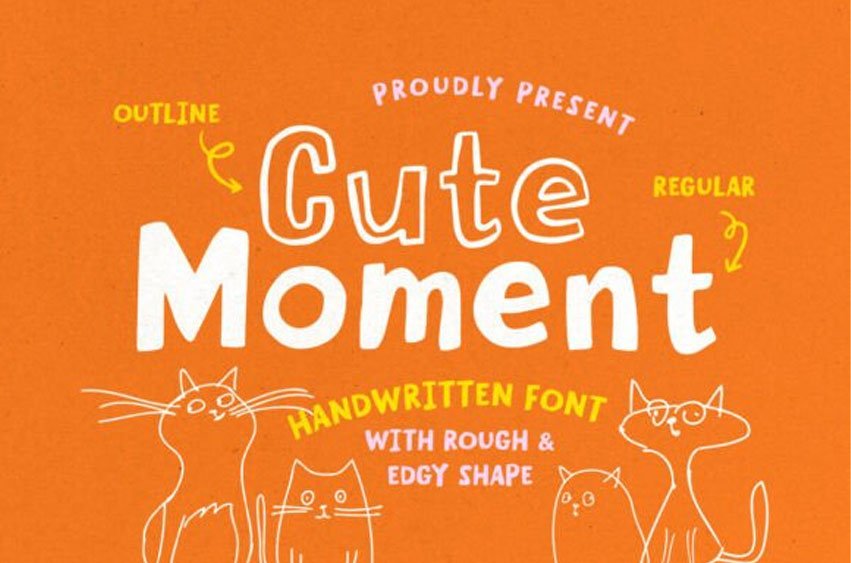
Cute Moment Font is a rough, handwritten sans-serif typeface that features both regular and stylized outline styles. This font is ideal for various applications, particularly for quotes and posters.
Its rough and messy design adds a naturally crafted feel to your projects. Additionally, Cute Moment supports multiple languages.